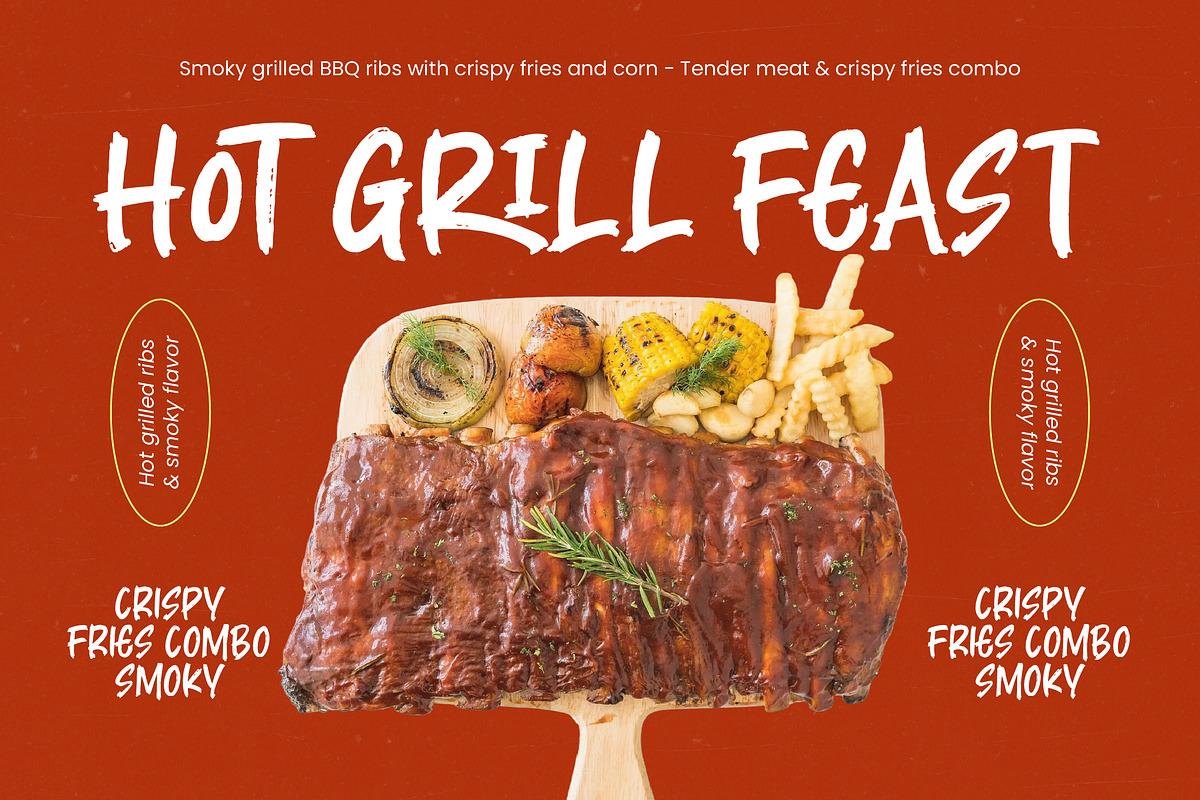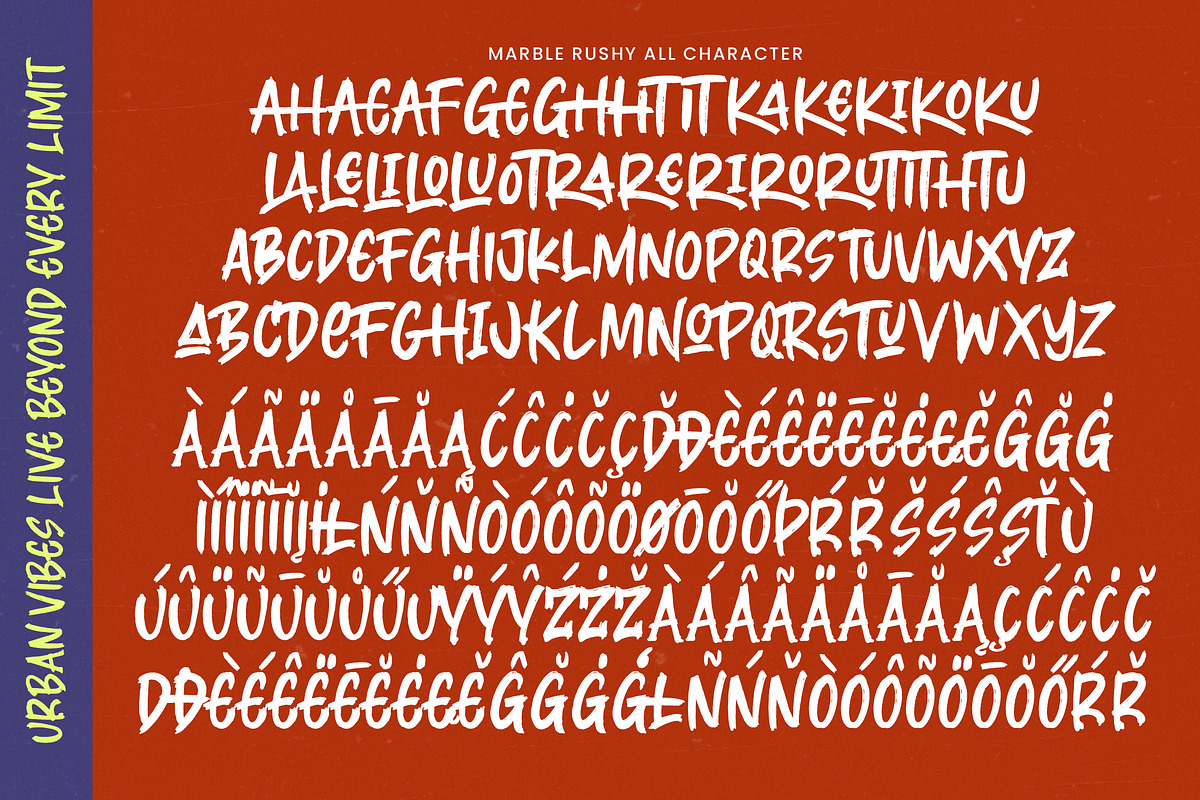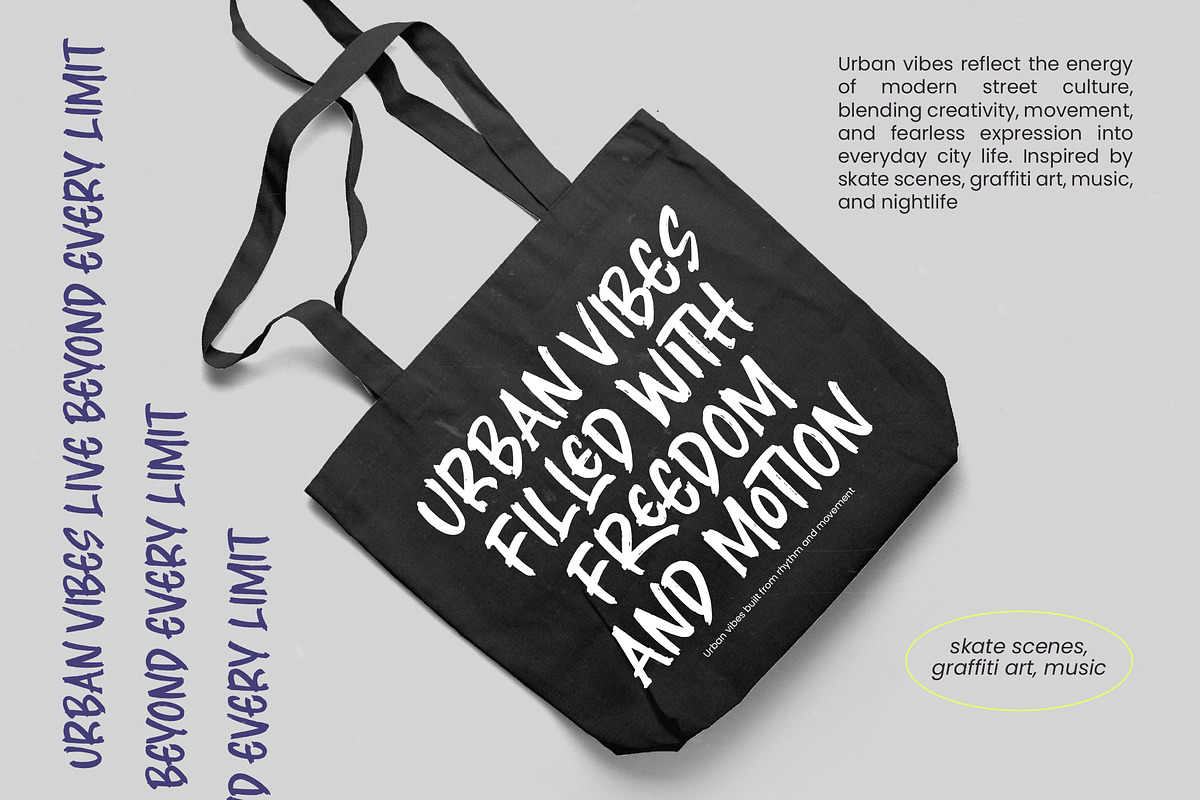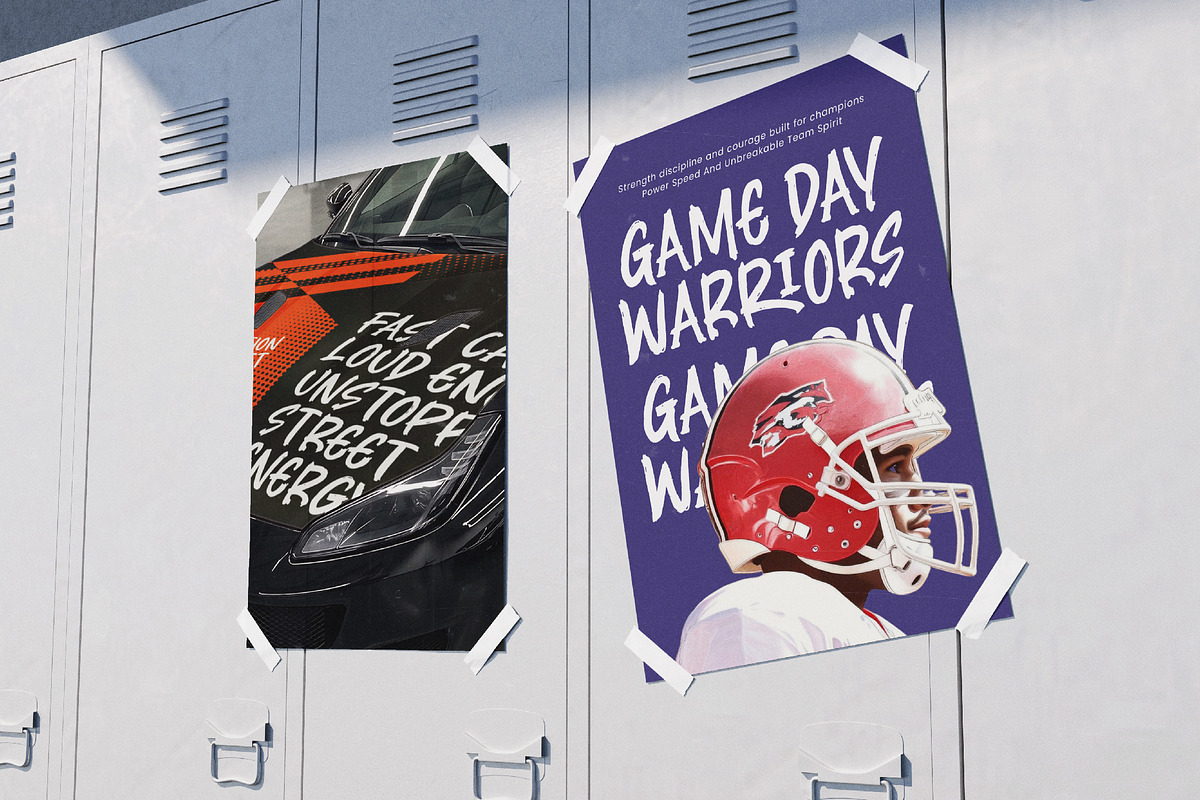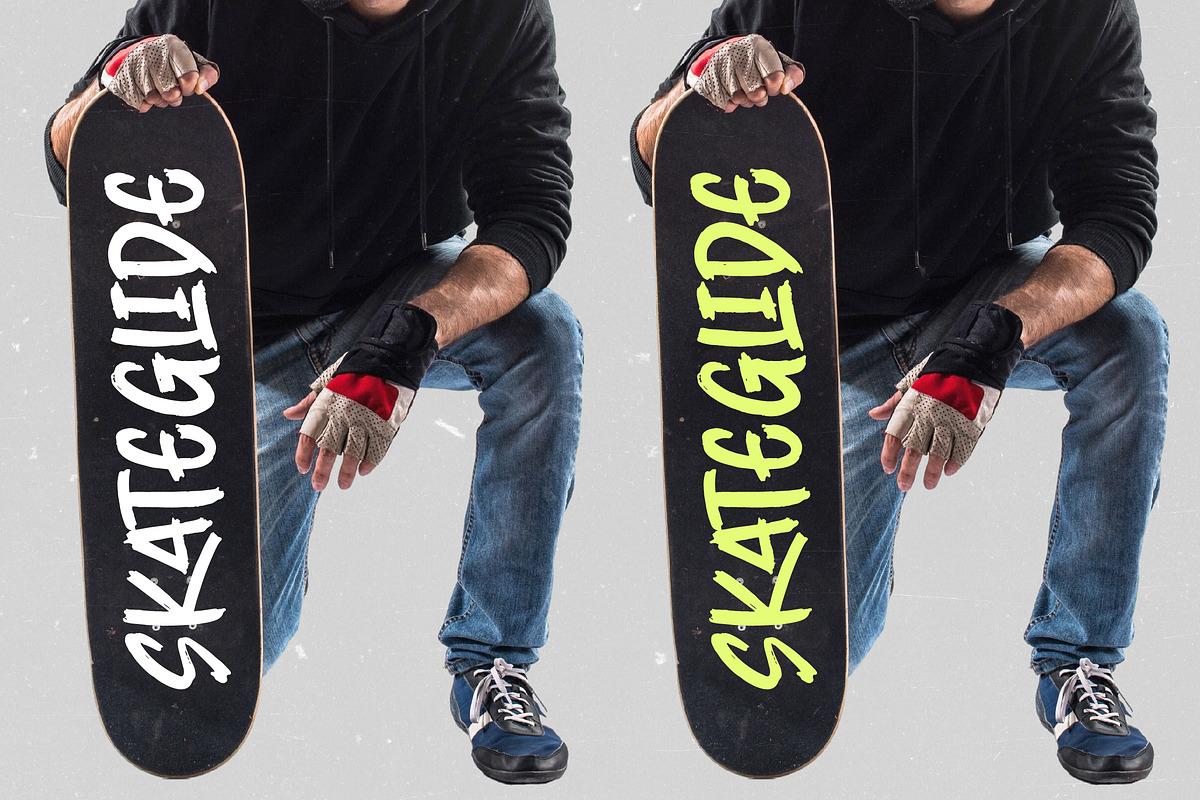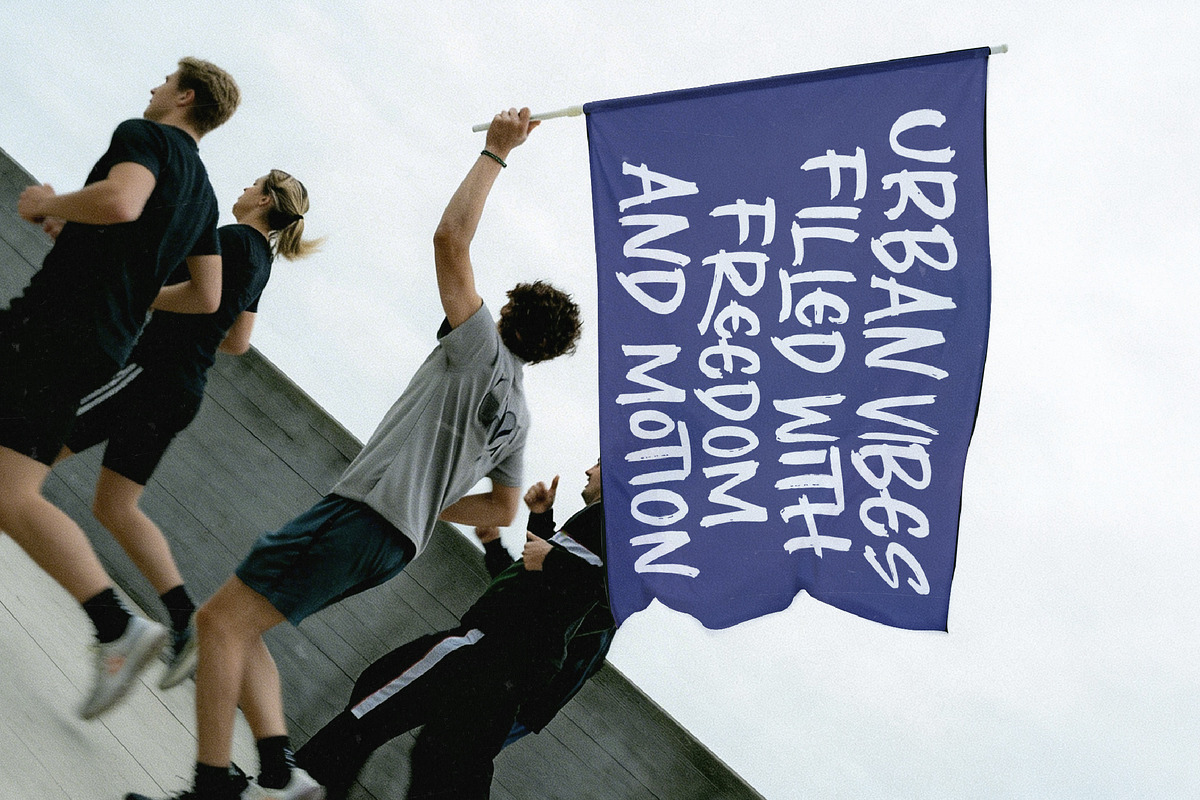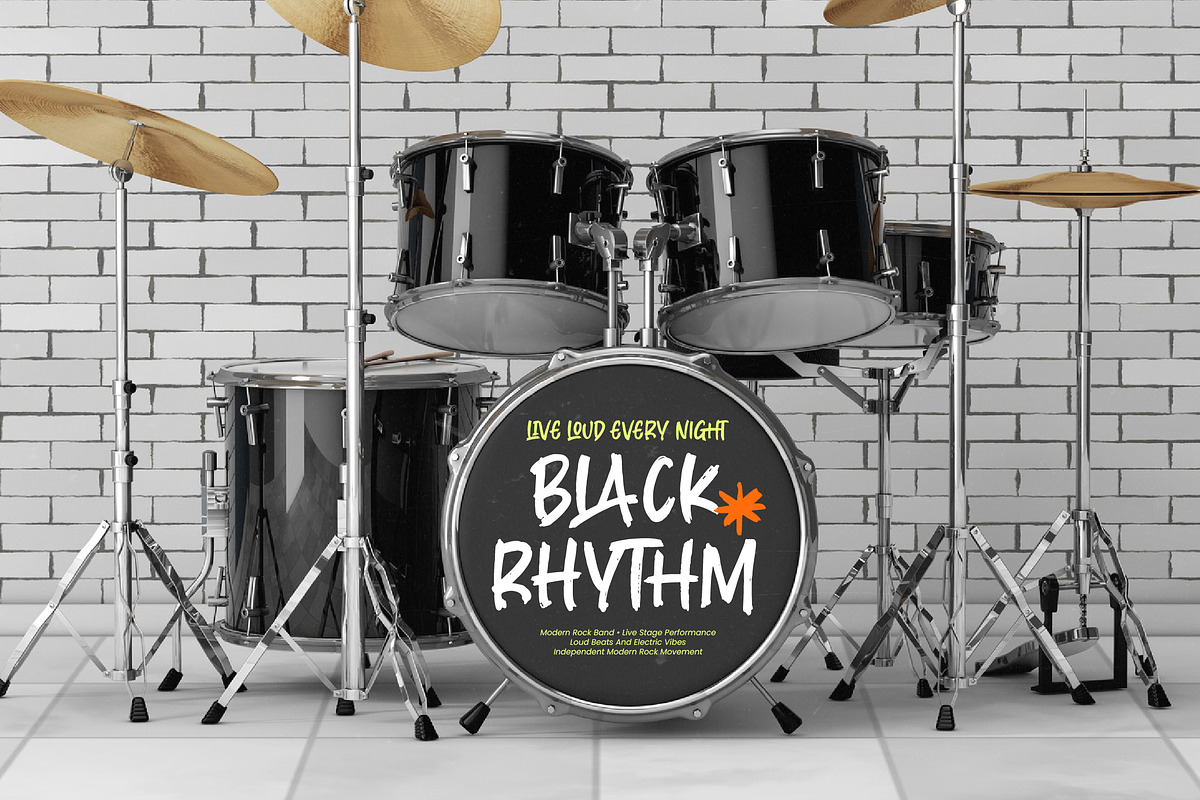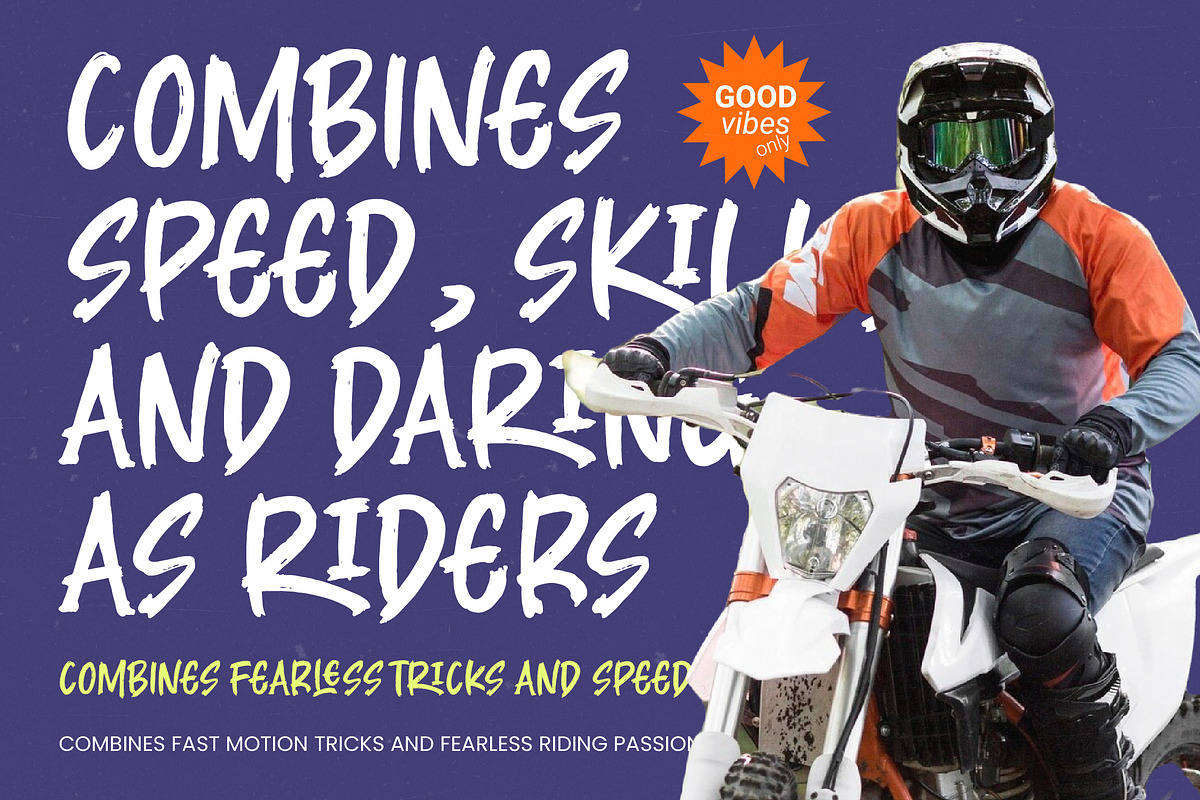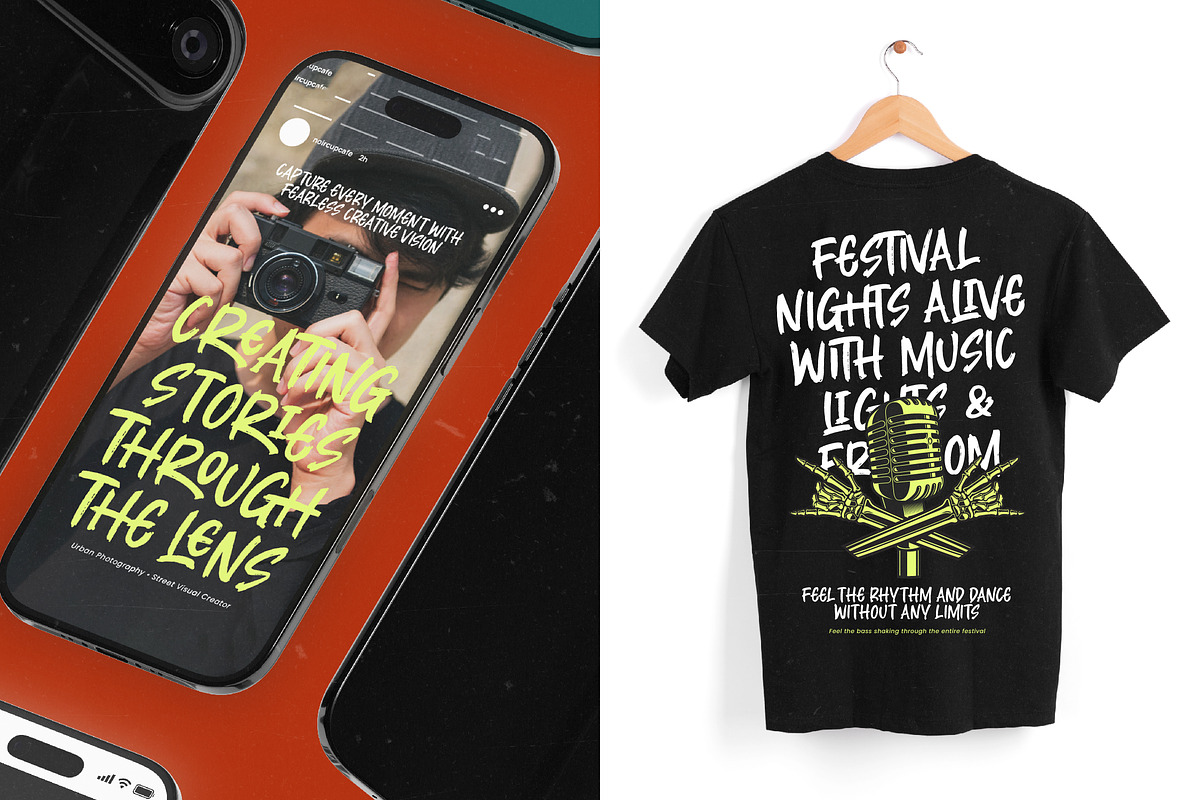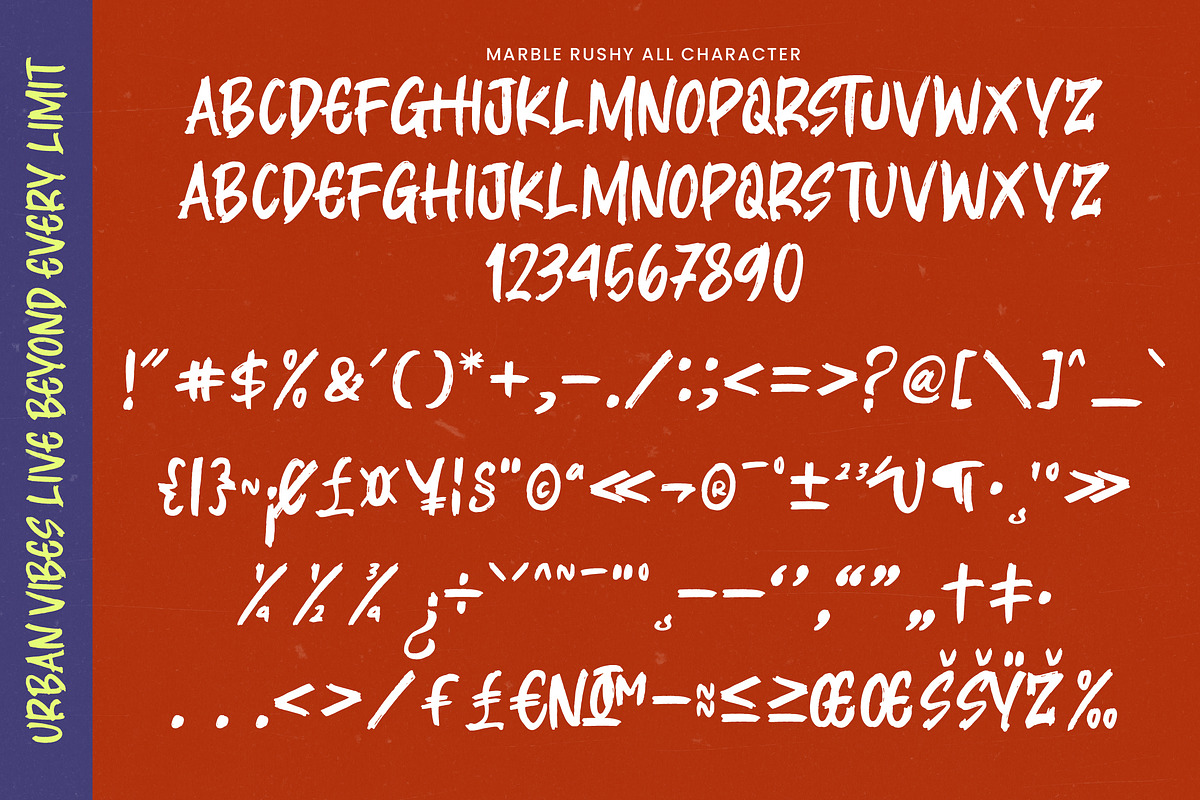
Marble Rushy Allcaps Brush Typeface
Marble Rushy - Allcaps Brush Typeface
Unleash raw energy and urban grit with the Marble Rushy - Allcaps Brush Typeface, a font designed to command immediate attention. This high-impact brush font features authentic hand-drawn strokes and a bold aesthetic that captures the essence of street culture and modern motion. Its rugged texture and energetic letterforms ensure that every word vibrates with life, making it the premier choice for designers seeking a contemporary edge in their visual communications.
Engineered for creative flexibility, the Marble Rushy - Allcaps Brush Typeface boasts a massive library of 422 glyphs, including 26 ligatures and 61 alternates. These professional-grade Opentype features allow for a truly customized typographic look, preventing repetitive patterns and maintaining a natural, handcrafted feel. Whether you are crafting a loud headline or a signature logo, this typeface provides the creative versatility needed to produce standout professional designs.
Break boundaries and connect with audiences worldwide through powerful, localized design and communication. With its extensive multilingual support, Marble Rushy - Allcaps Brush Typeface adapts seamlessly across global markets, making it incredibly versatile for international projects. This robust character set ensures your brand message remains consistent and impactful, regardless of the language or region, solidifying its place as a global design asset for the modern creative agency.
Elevate your brand identity with a tool that is perfect for high-energy branding and dynamic marketing collateral. The Marble Rushy - Allcaps Brush Typeface is ideally suited for streetwear branding, extreme sports graphics, music posters, and dynamic packaging. Its unapologetic presence makes it the go-to solution for editorial design and social media content that needs to cut through the digital noise with a unique, expressive voice.